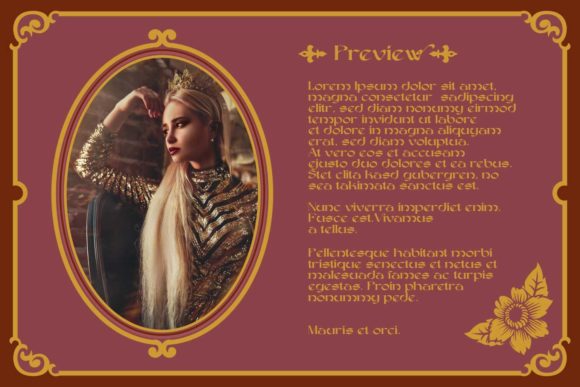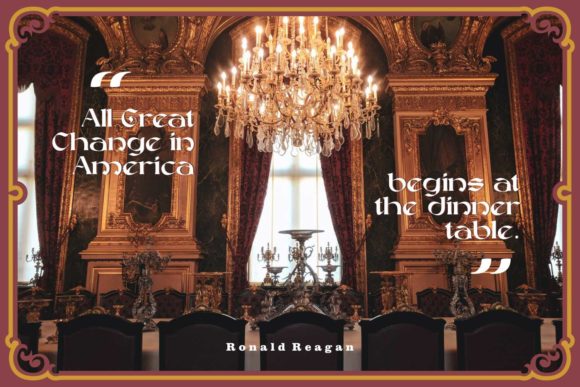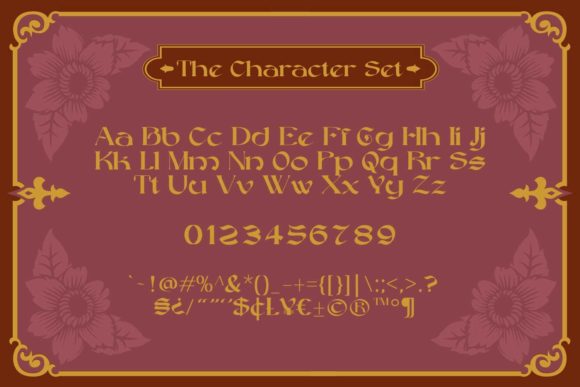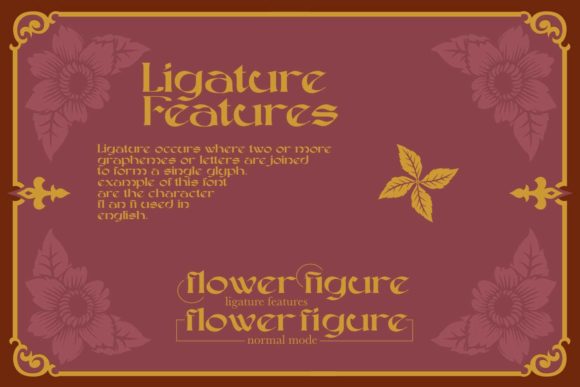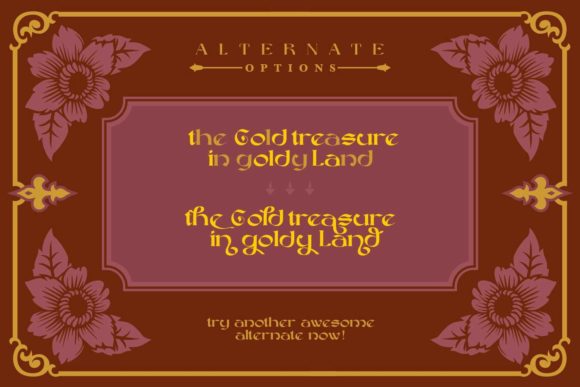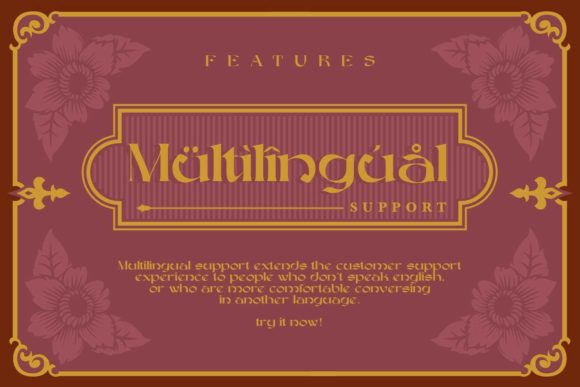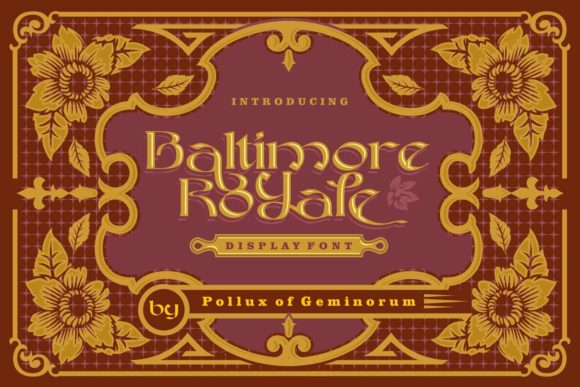
Baltimore Royale Font: Elevate Your Designs with a Touch of Vintage Elegance
In the world of typography, fonts play a crucial role in conveying the tone and personality of a design. For designers and crafters looking to add a dash of sophistication and vintage charm to their projects, the Baltimore Royale font is an excellent choice. This distinct and stylish display font is engineered to make a statement, exuding strength, confidence, and dynamism.
What is Baltimore Royale Font?
Baltimore Royale is a carefully crafted display font that draws inspiration from vintage typography. Its unique design elements make it stand out in the realm of digital fonts, offering a fresh yet classic look that can elevate a wide range of design projects. From branding and advertising to packaging and digital media, Baltimore Royale can add tons of stylish character to your designs.
Key Features of Baltimore Royale Font
- Distinct and Vintage Styling: Baltimore Royale boasts a unique vintage aesthetic that sets it apart from more contemporary fonts. Its classic design elements evoke a sense of nostalgia and timelessness, making it perfect for projects that require a touch of elegance.
- Strong, Confident, and Dynamic: The font’s bold and assertive appearance makes it ideal for headlines, titles, and any design element where you want to grab attention. Despite its strong presence, it maintains a level of sophistication that works well across various design contexts.
- Versatility: One of the key advantages of Baltimore Royale is its versatility. It can be used in a variety of design projects, from digital platforms like websites and social media graphics to print materials such as brochures, posters, and business cards.
- Easy to Read: Despite its decorative nature, Baltimore Royale remains highly legible, ensuring that your message is conveyed clearly and effectively.
Who Can Benefit from Using Baltimore Royale Font?
Baltimore Royale is a valuable asset for a wide range of designers and crafters, including:
- Graphic Designers: Professionals looking to add a vintage touch to their designs will find Baltimore Royale to be a versatile and stylish option.
- Branding Experts: For those creating brand identities that require a strong, yet elegant typography, this font can be a great choice.
- Digital Artists and Illustrators: Baltimore Royale can add a unique element to digital art, especially in projects that incorporate text.
- Crafters and Makers: Individuals working on DIY projects, crafting, or any form of handmade art can use this font for adding personalized touches to their creations.
How to Use Baltimore Royale Font Effectively
To make the most of Baltimore Royale, consider the following tips:
- Pair with Simpler Fonts: For body text, pair Baltimore Royale with simpler, more readable fonts to create contrast and visual hierarchy.
- Experiment with Colors: While the font itself is a statement piece, experimenting with different colors can further enhance its vintage appeal.
- Adjust Size and Weight: Don’t be afraid to play with the size and weight of the font to emphasize certain parts of your design.
Baltimore Royale font is a powerful tool for designers and crafters aiming to infuse their projects with a vintage flair. Its unique blend of strength, confidence, and elegance makes it suitable for a myriad of design applications. By incorporating Baltimore Royale into your typography arsenal, you can create visually compelling and memorable designs that stand out in a crowded digital landscape.
Whether you’re working on a branding project, crafting digital content, or creating handmade art, Baltimore Royale is poised to add that extra layer of style and sophistication you’re looking for. Explore its potential, and let this vintage-styled display font transform your designs into timeless pieces of art.